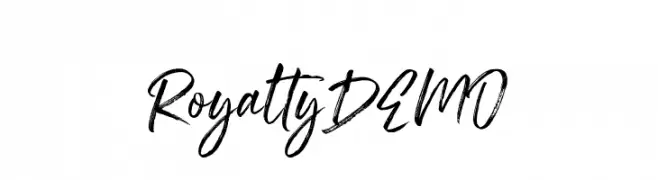
Designer Notes Font
A handwritten, casual font with dynamic strokes and an organic feel.
KidStories Font
A playful, hand-drawn font with a textured, wood-like appearance.
MythicalGarden-Fat Font
A bold, playful display font with exaggerated strokes and whimsical curves.
MythicalGarden Font
A playful, whimsical font with rounded, hand-drawn letterforms.
Mozzarella Font
Free Royalty Font
Bold and playful font with rounded edges.
NaturalisticPlayground Font
A playful, bold font with rounded, organic shapes and a hand-drawn feel.
Royalty DEMO Font
A dynamic, brush-style font with expressive strokes and elegant curves.
Royalty Criminals Regular Font
A bold, decorative font with medieval-inspired details and high contrast strokes.
ComicLandHighlight Font
A playful, bubbly font with a cartoonish, hand-drawn style.
Royalty Savior Font
An intricate and decorative blackletter-inspired font with modern elements.
Royalty Code Regular Font
A modern, high-contrast decorative font with elegant and artistic elements.
Royalty Waffles Font
A whimsical and ornate font with playful loops and curls.
Peanut Font
A playful, hand-drawn style with bold, textured outlines and rounded forms.
SketchBego Font
A playful, hand-drawn font with a textured, sketch-like appearance.
Royalty Criminals Italic Font
A bold, decorative italic font with intricate serifs and flourishes.
SeniorArtist Font
A playful, bold font with irregular, organic shapes and a whimsical feel.
Chrysantin Font
A whimsical and decorative font with playful curves and ornate details.
ArgentinaScript-Italic Font
A flowing, cursive script font with an elegant italic slant.
Champigna-Light Font